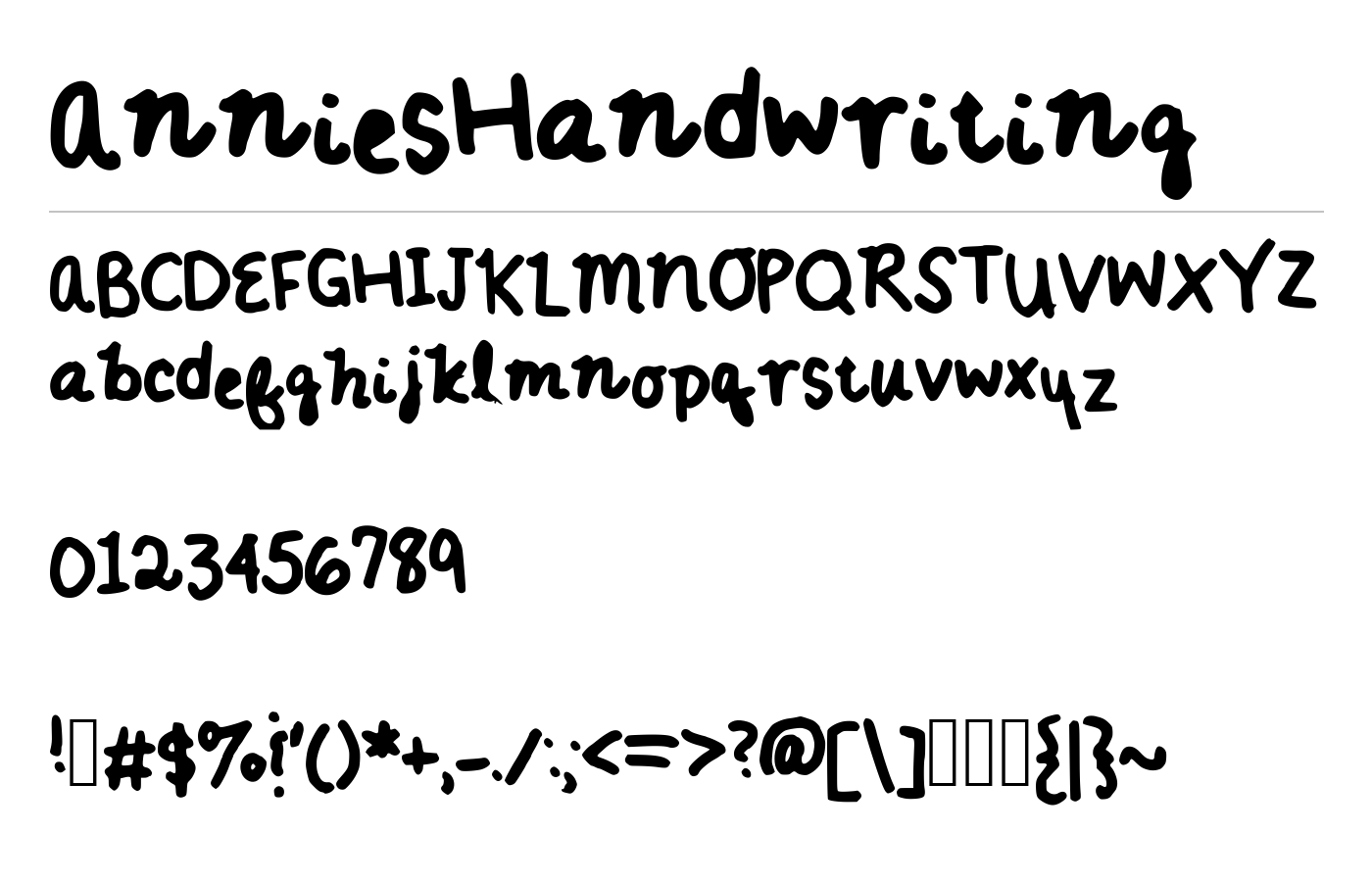
AnniesHandwriting is a playful and informal handwritten sans serif font that mimics natural pen strokes with slightly uneven, rounded letterforms. Its medium weight, generous spacing, and lively character shapes make it warm and approachable, ideal for casual, creative, or personal designs. This font works well in children’s books, greeting cards, branding, and fun digital content where a friendly, authentic handwritten feel is desired.
AnniesHandwriting Font
About AnniesHandwriting Font